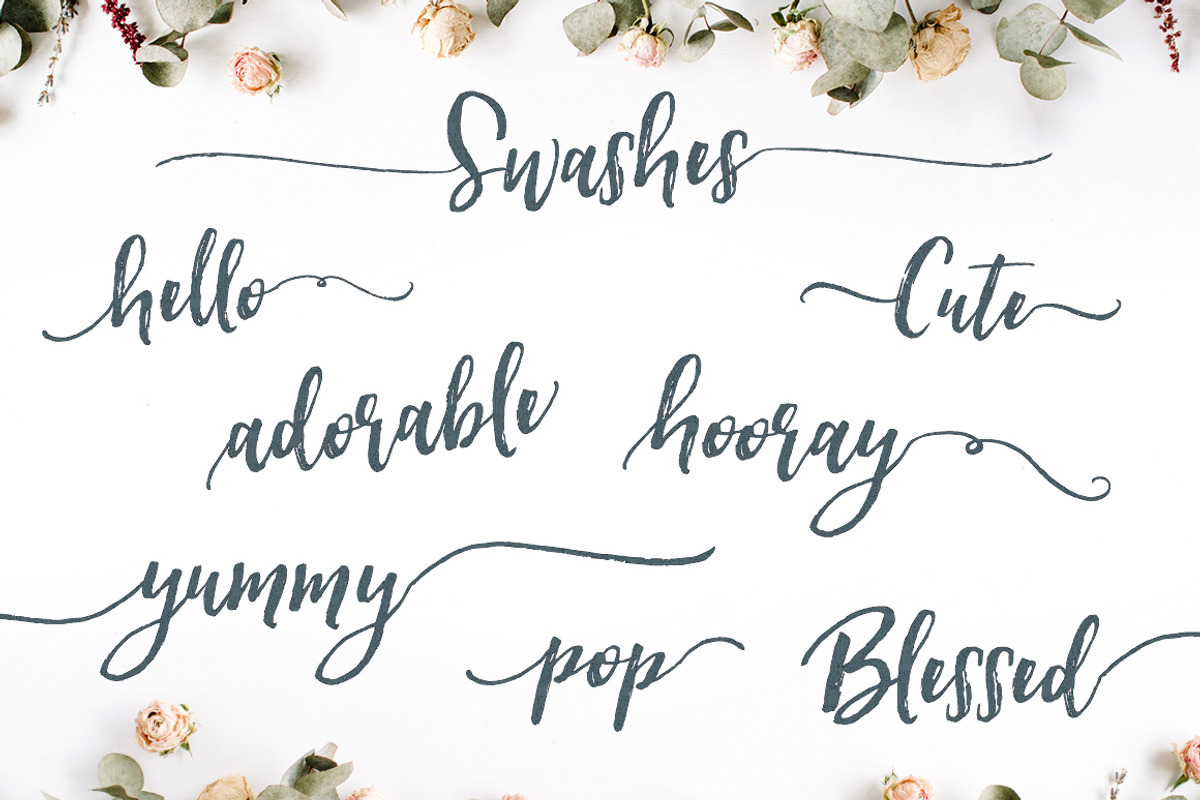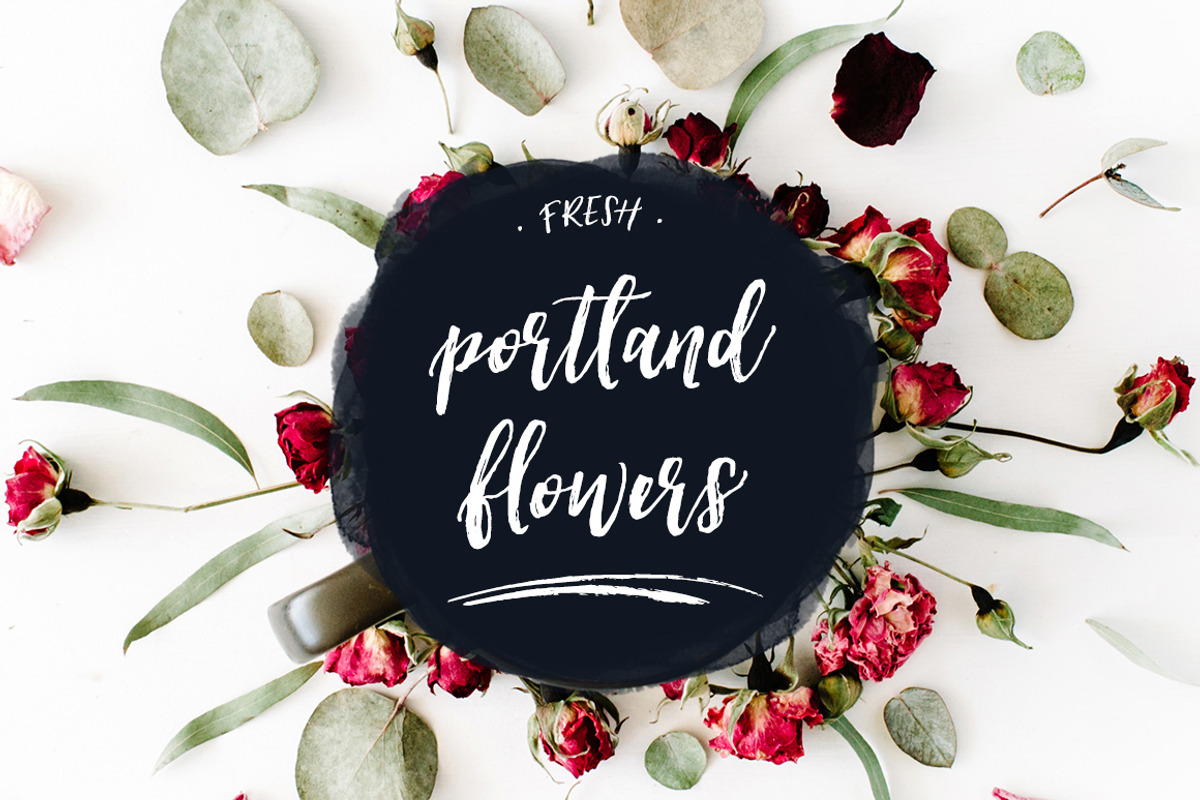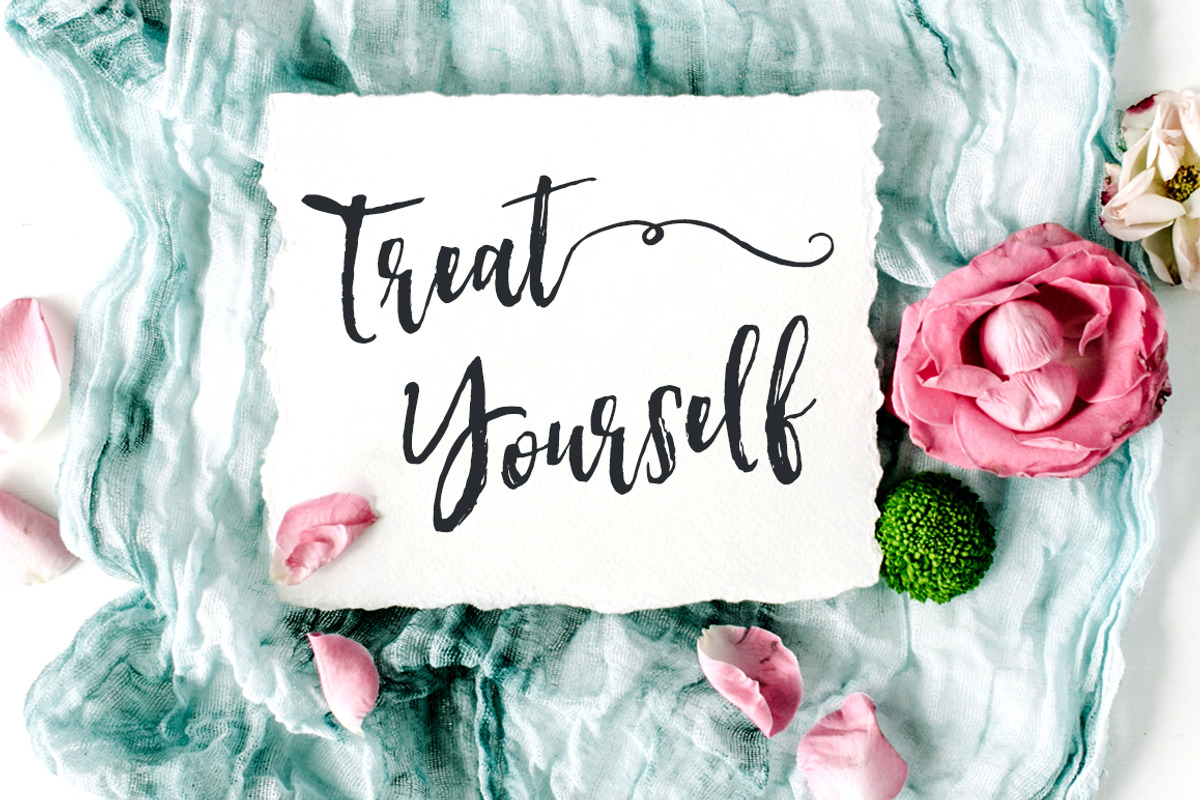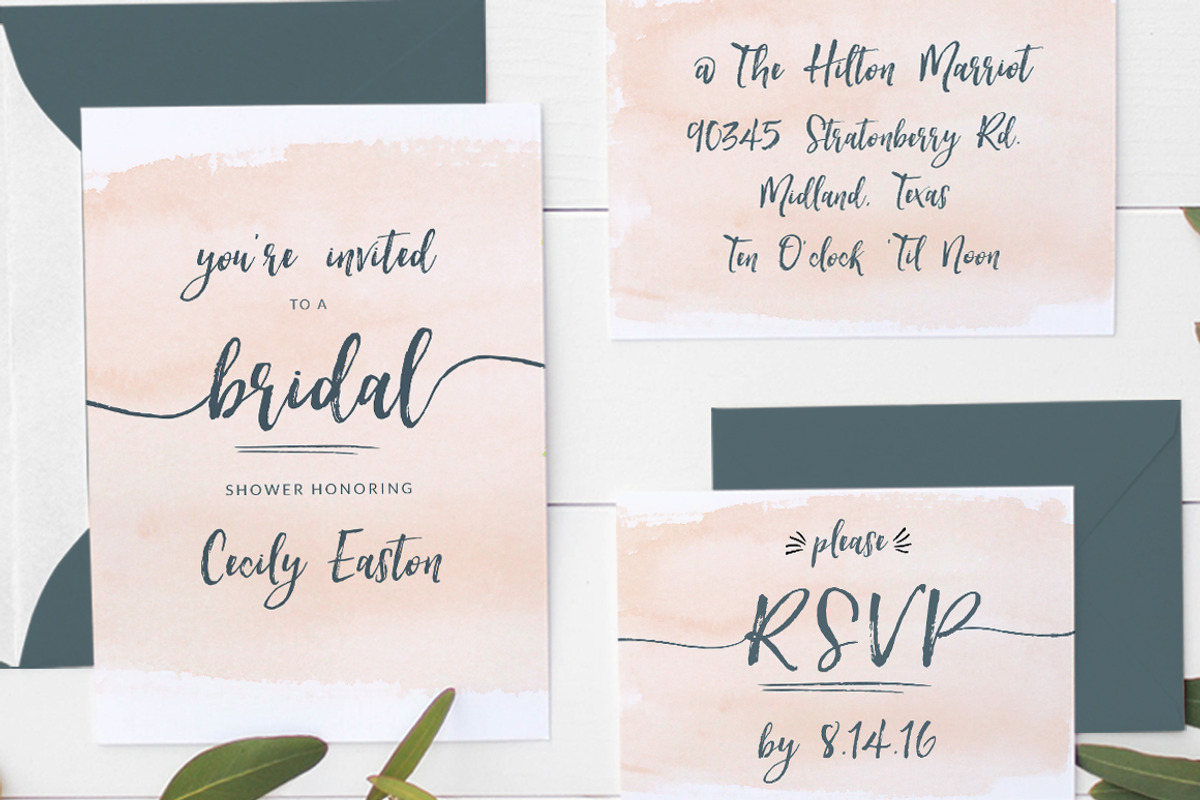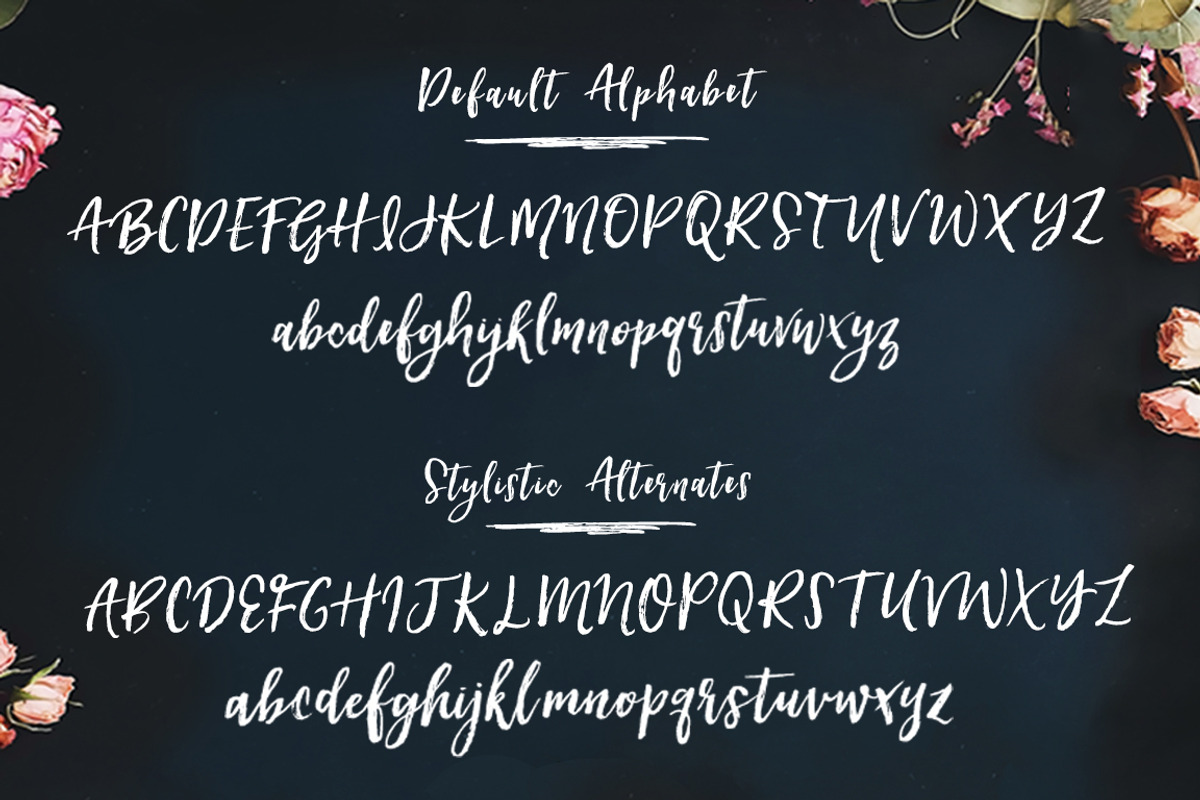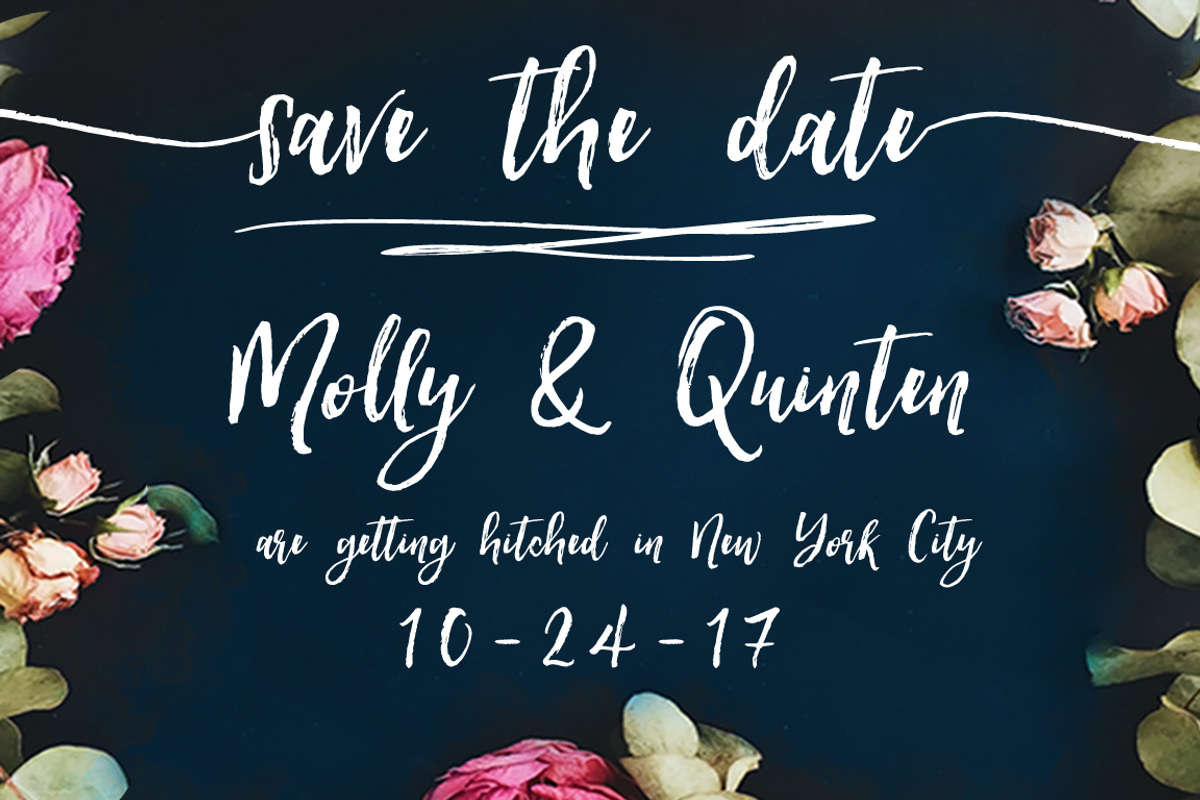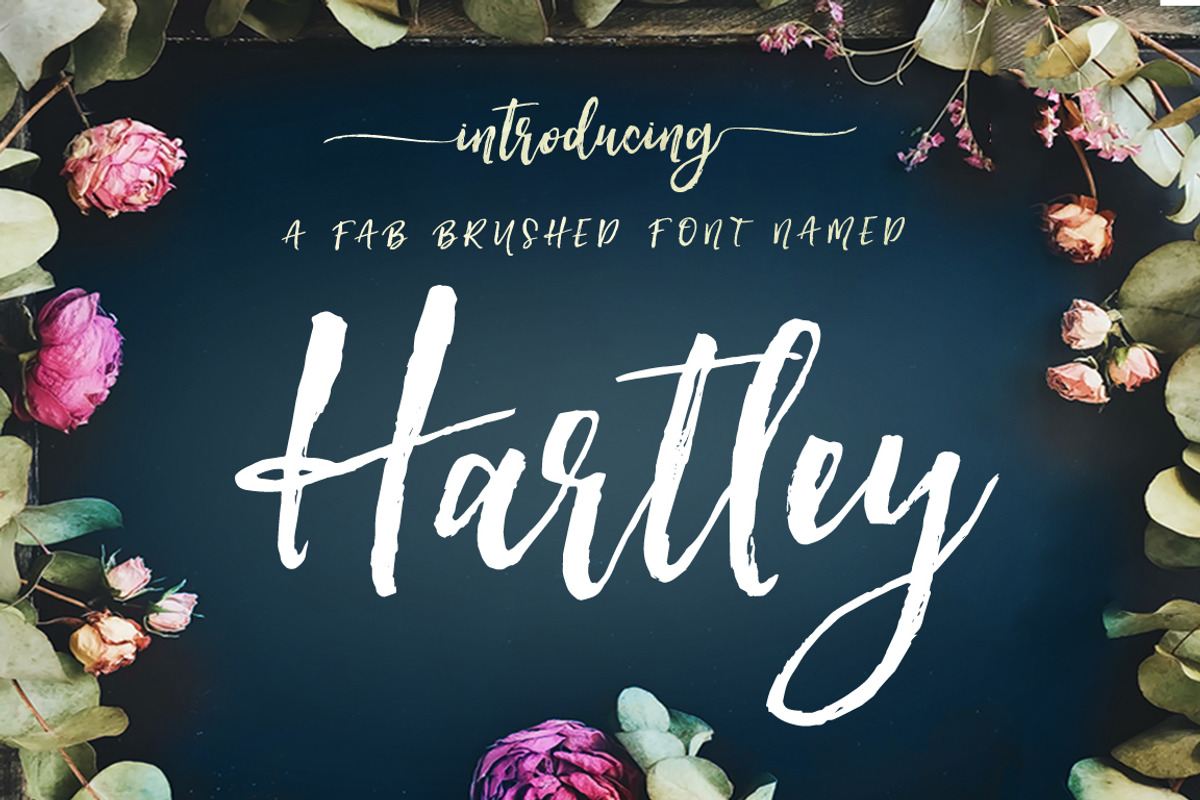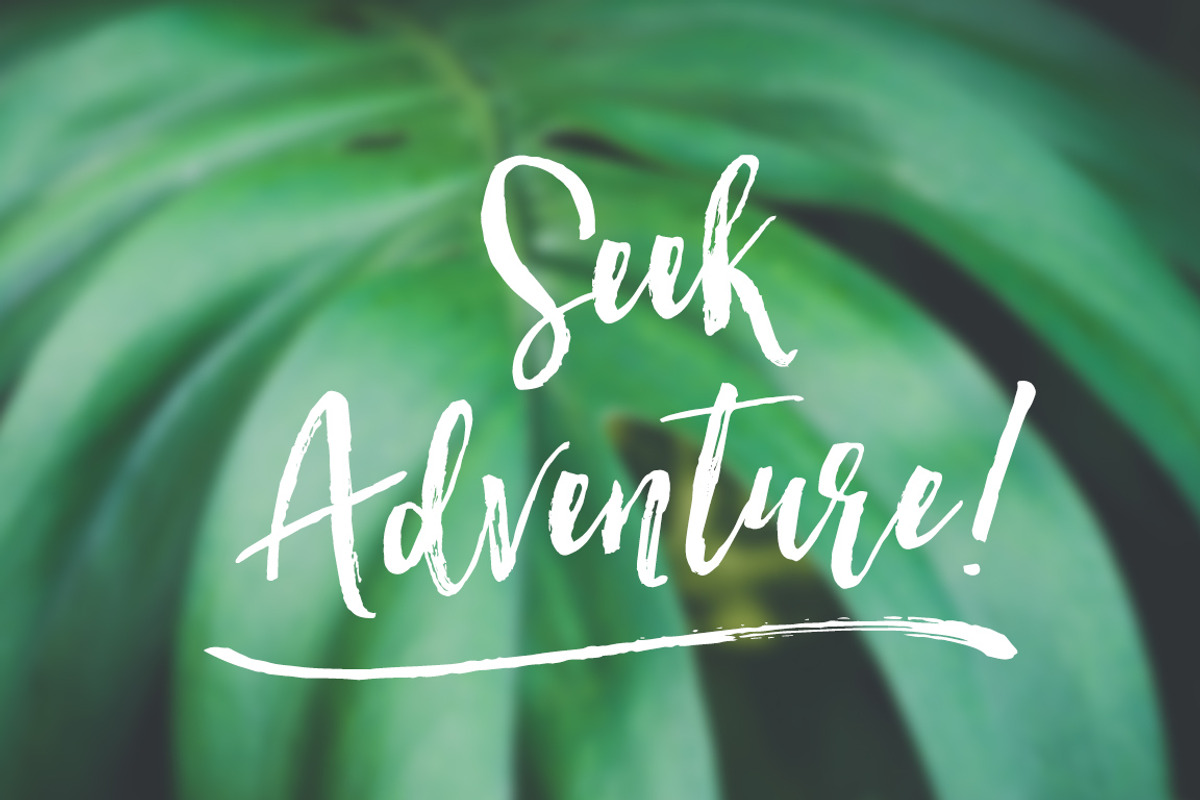
Hartley Font
Hartley Font by Angie Makes is a font selected for branding, posters, packaging, typography.
- Hartley includes 15 front and end swashes that attach seamlessly to upper and lowercase letterforms.
- Flower doodles, realistic brush textured strokes, doodles, and more are also included.
- Hartley includes 15 front and end swashes that attach seamlessly to upper and lowercase letterforms.
- Flower doodles, realistic brush textured strokes, doodles, and more are also included.
- Introducing Hartley, a fabulous dry textured brush script font with swashes + alternates galore.
- Hartley includes 15 front and end swashes that attach seamlessly to upper and lowercase letterforms.
- Turn on Stylistic Alternates to easily use the alternate lowercase and uppercase letters in the font.
Why Hartley Font is worth a look
Hartley Font by Angie Makes fits naturally into Branding, posters, packaging, typography.